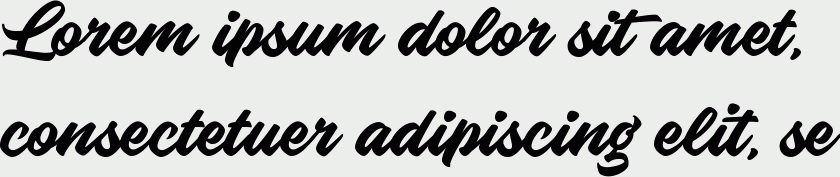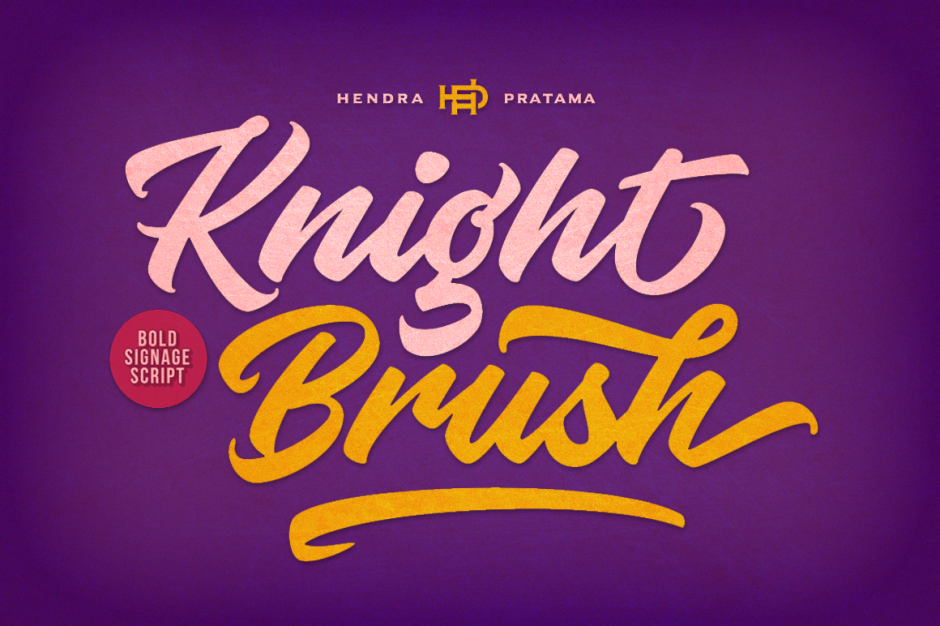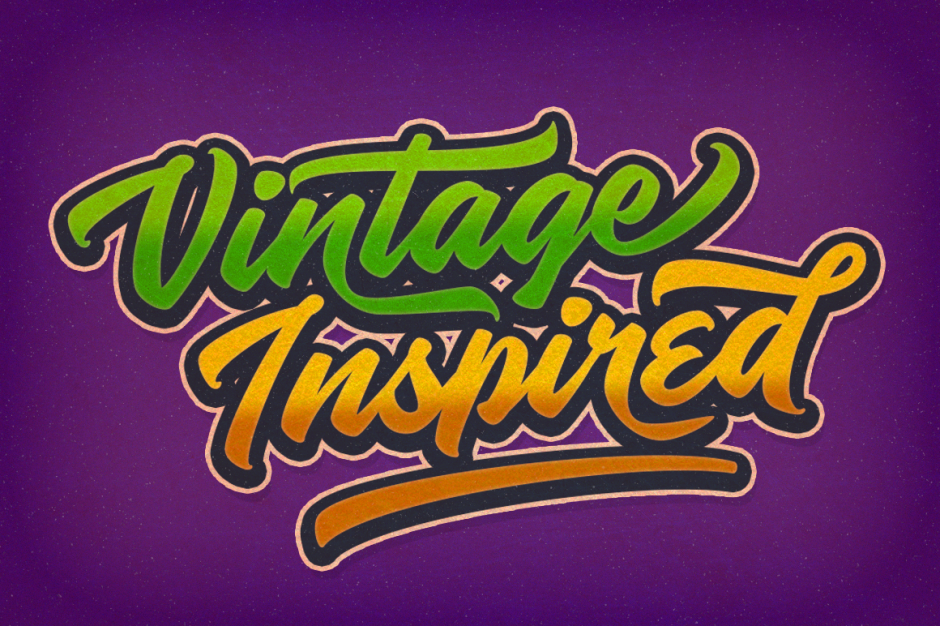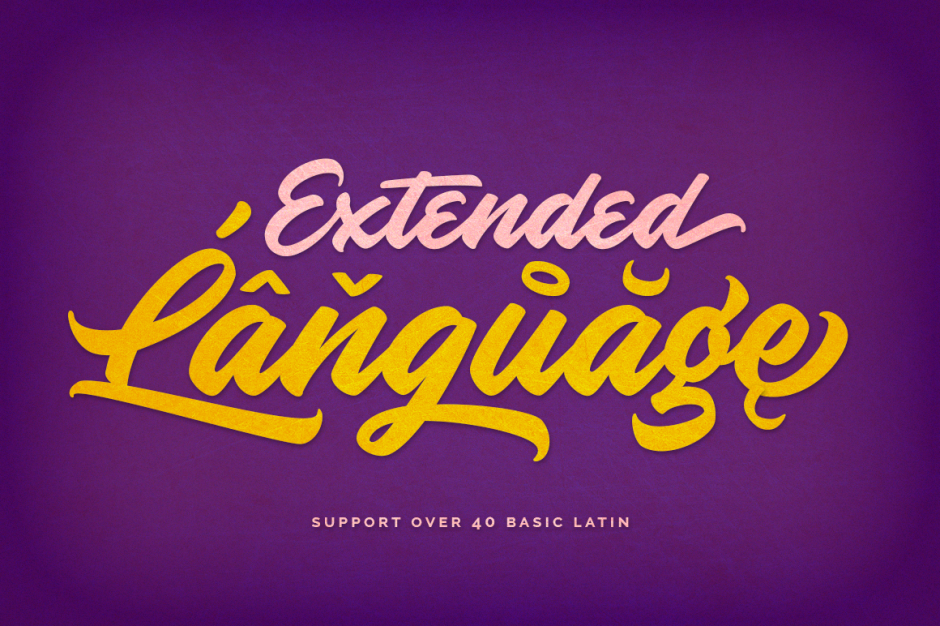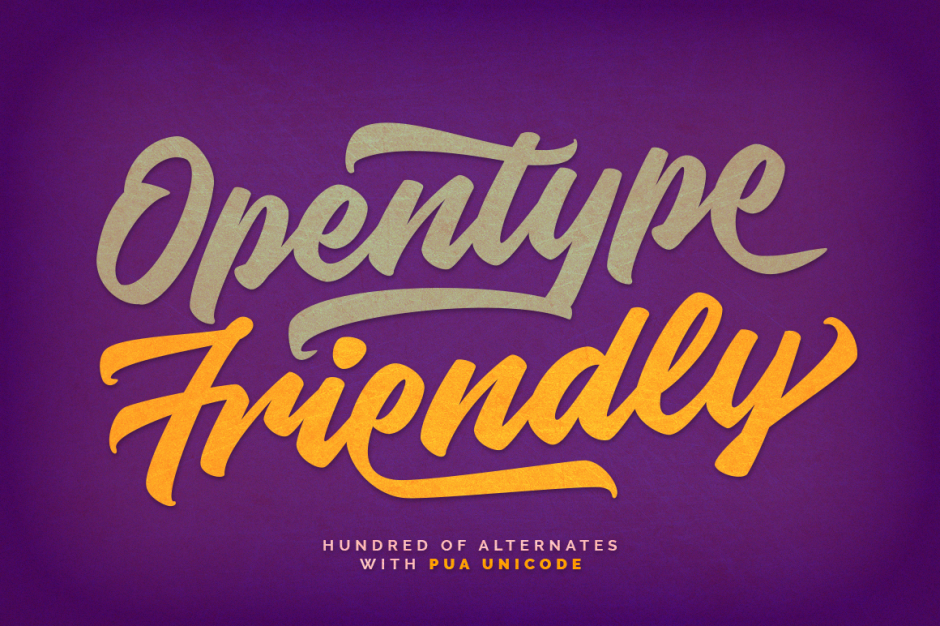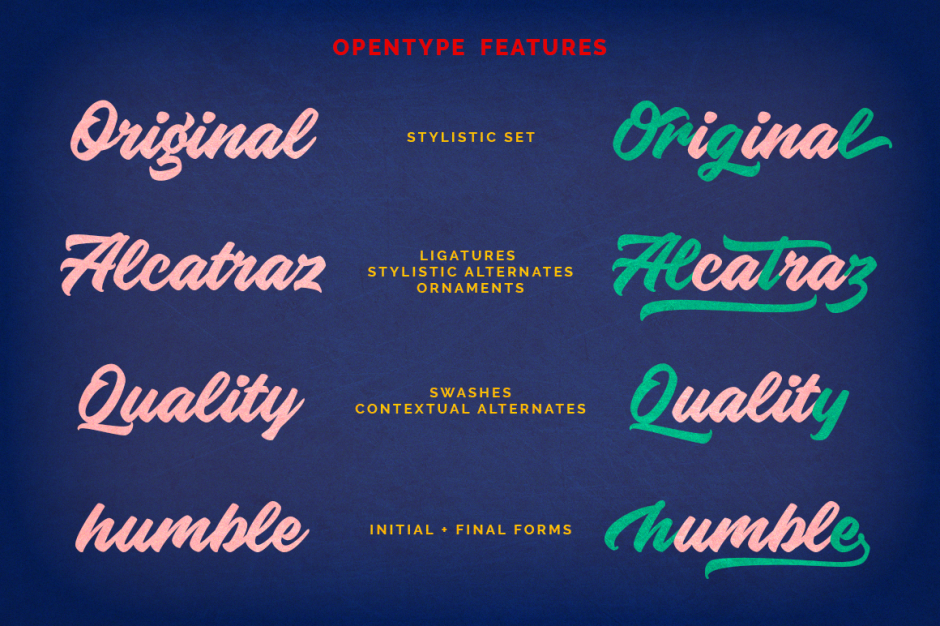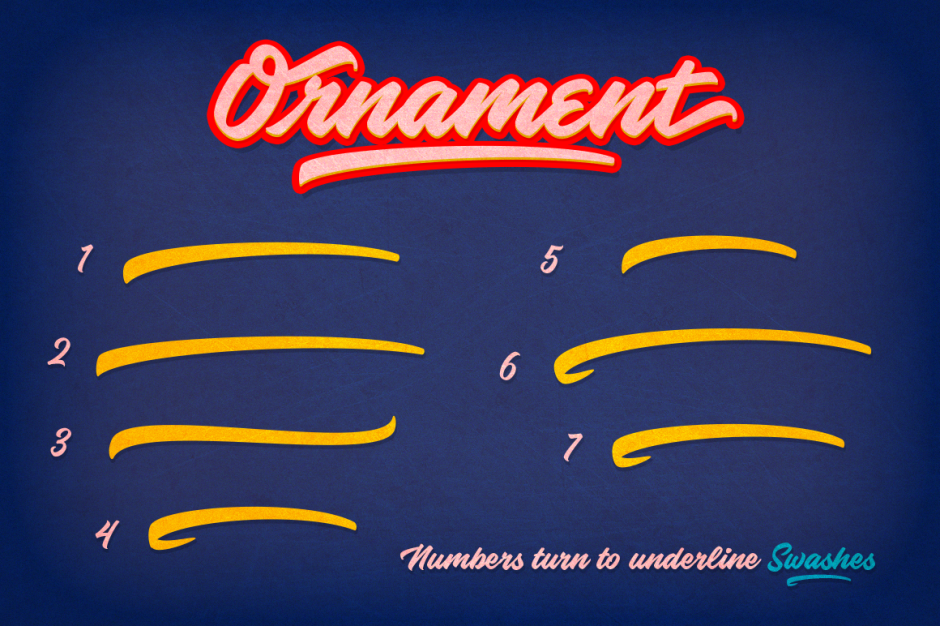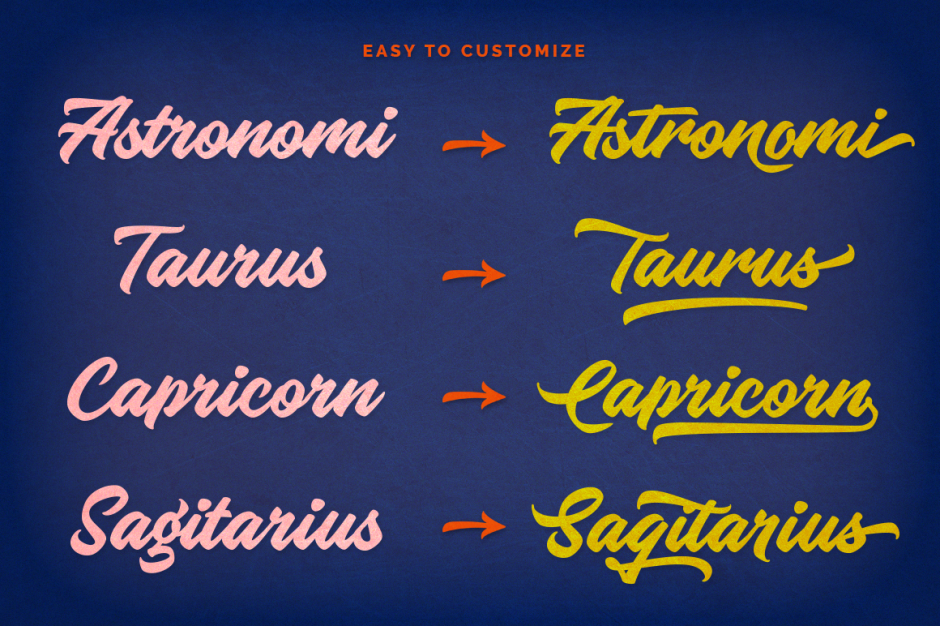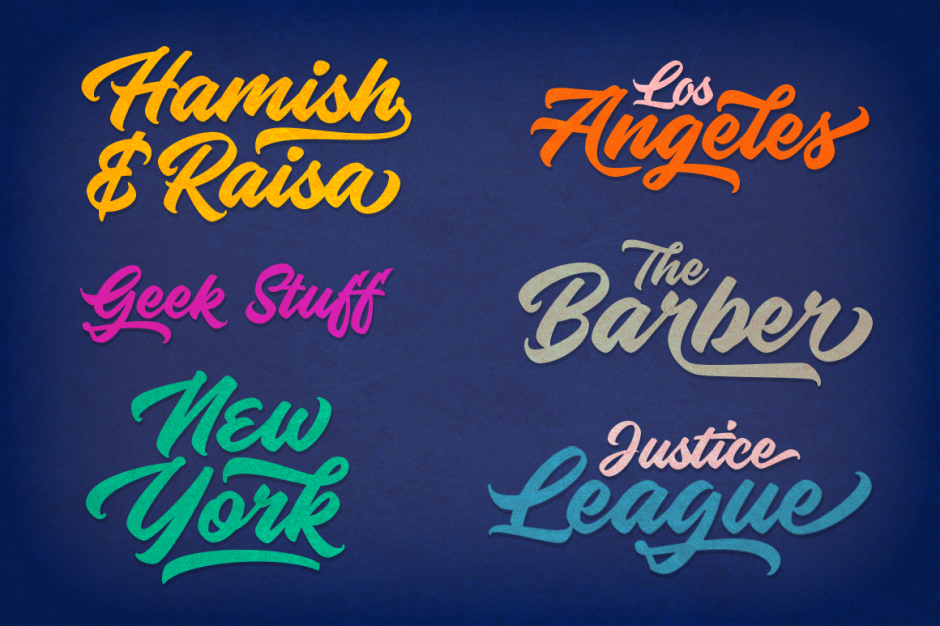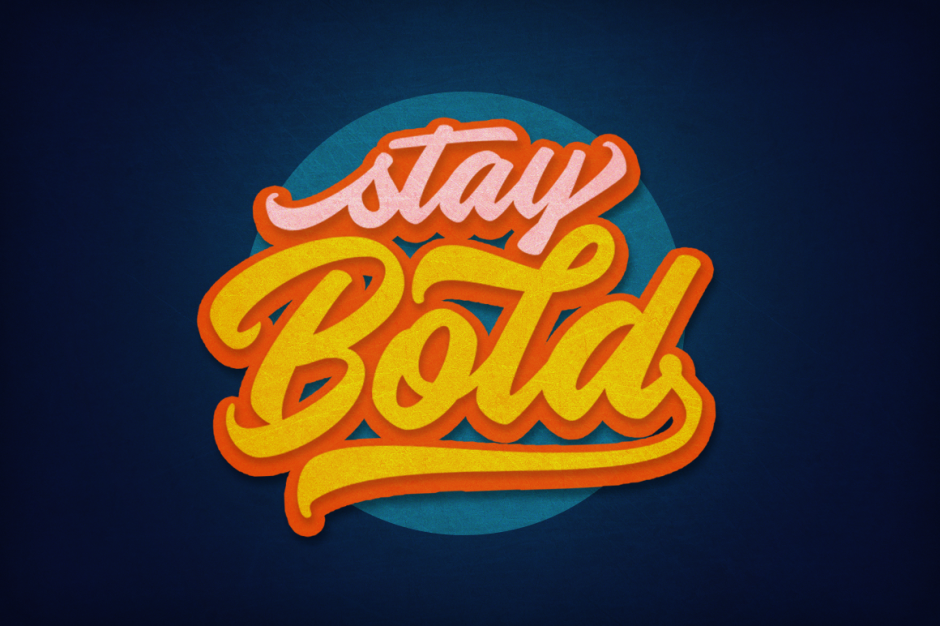
Knight Brush
Inspired by the vintage era when sign painting was take as very important part for creating storefront signboard, branding and promotional ads on the street, Knight Brush was made to resembles the brush painting looks natural.
With over 570 Glyphs and the magic of OpenType, you can create logotype and various sign art typography with this font effortless.
Stylistic Alternates, Ligatures, Swashes, Contextual and Stylistic Set (up to 16 Variants per Letter), this font is a great weapon for your design asset.
With over 570 Glyphs and the magic of OpenType, you can create logotype and various sign art typography with this font effortless.
Stylistic Alternates, Ligatures, Swashes, Contextual and Stylistic Set (up to 16 Variants per Letter), this font is a great weapon for your design asset.
Designer: Hendra Pratama